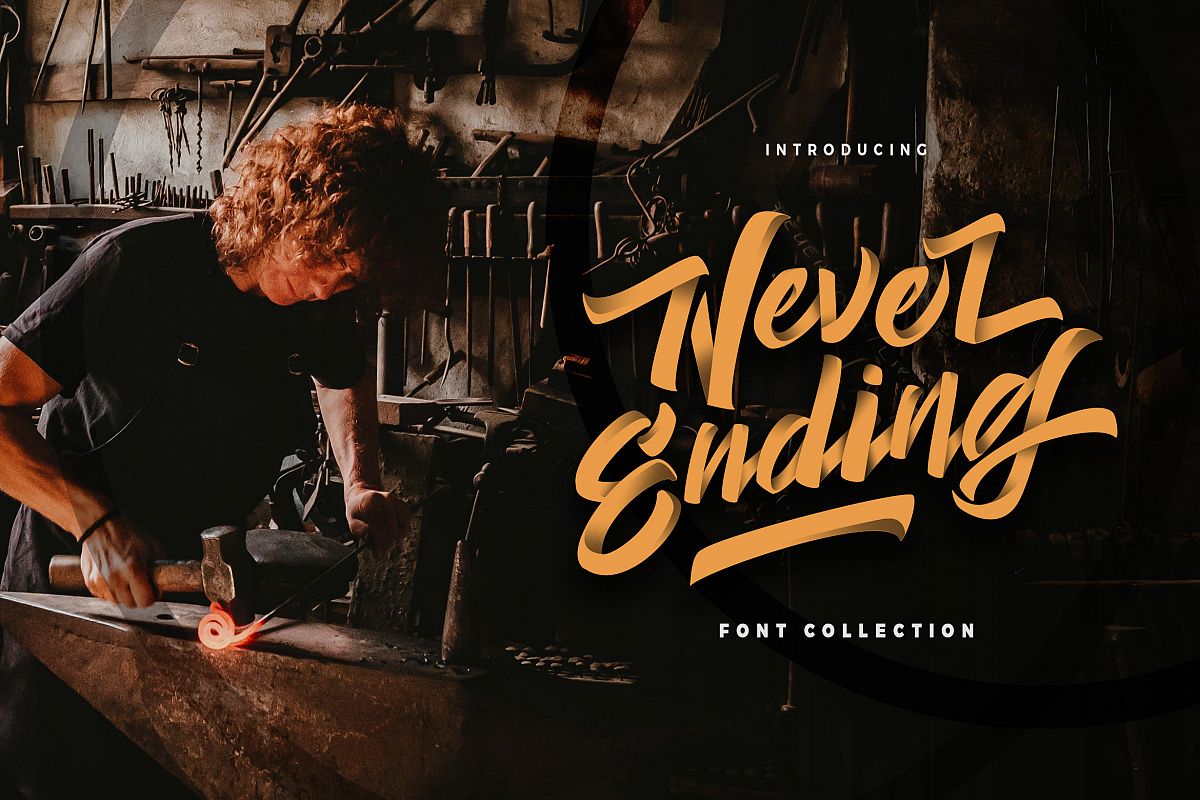
Never Ending - Script
"Never Ending" is a font display is made by hand, inspired by classic posters.
comes with uppercase, lowercase, numerals, punctuations and so many variations on each characters include opentype alternates, common ligatures and also additional swash to let you customise your designs. Perfect to use for Logotype, Letterhead, Poster, Apparel Design, Label and etc.
**OPENTYPE FEATURES**
* Swash
* Standard Ligatures
* Contextual Alternates
* Stylistic Alternates
* All Alternates